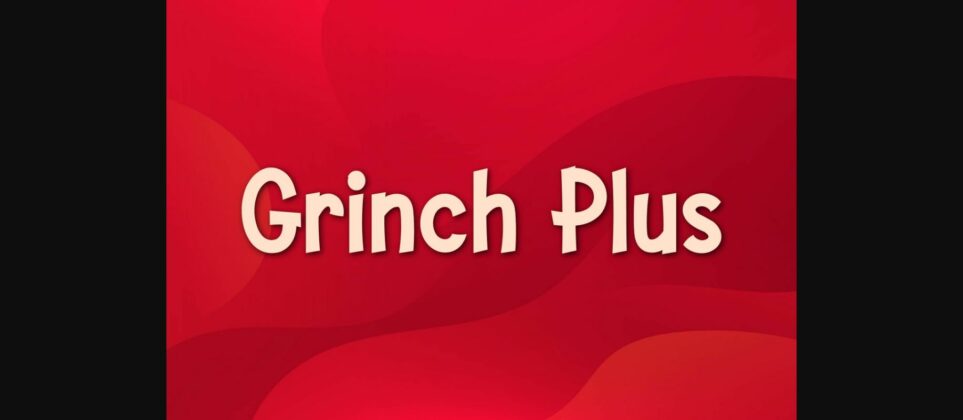
About Grinch Plus Font
Behold Grinch Plus, an exquisite Stylish Decorative Font meticulously crafted by Gothic, seamlessly marrying modern quality with the playful charm reminiscent of the beloved Grinch Cartoon Font. Versatile and captivating, it finds its perfect canvas in title headings, movie names, and T-shirt designs. With 96 meticulously designed glyphs and 95 characters, this font embodies not only popularity but an awe-inspiring concept that elevates creativity to new heights, making it a truly exceptional choice for any design endeavor.